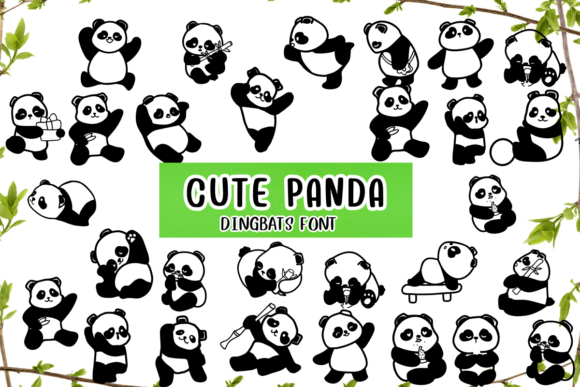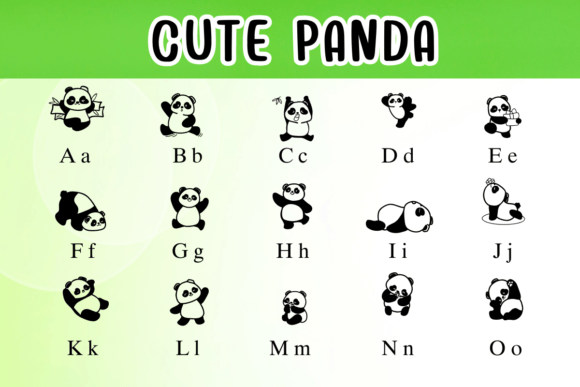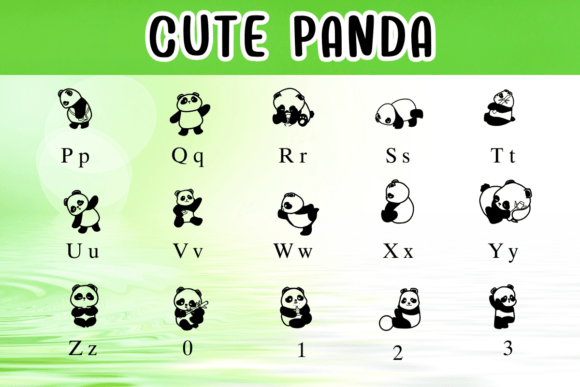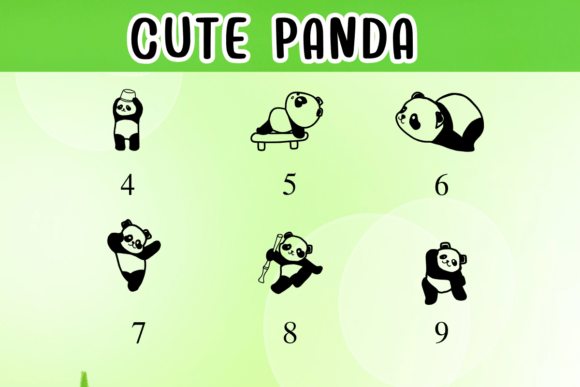
Cute Panda Font
About the Cute Panda Font
Step up your design game with Cute Panda Font, a font that exudes confidence and style. Cute Panda is a dingbats font with a sketch themed style. This font can enhance your creative projects such as wedding invitations, DIY, crafts, decorations, logos, and many other creative ideas.
Cute Panda’s sketched style works best for projects requiring a whimsical, hand-drawn feel. Ideal applications include logos for children’s products, branding for craft businesses, and elements within wedding invitations or packaging designs where a playful touch is desired. Avoid using it for body text or lengthy paragraphs; its informal nature is better suited to short phrases and headings.
The font’s core personality is undeniably friendly and approachable. It lacks the formality needed for corporate branding or serious publications.
Pairing Cute Panda with a clean sans-serif like Open Sans for body text or a simple serif like Lora for more formal elements creates a balanced and visually appealing contrast. For a more playful approach, consider pairing it with a rounded geometric sans-serif.
Cute Panda Font Usage Examples
Cute Panda Font Example